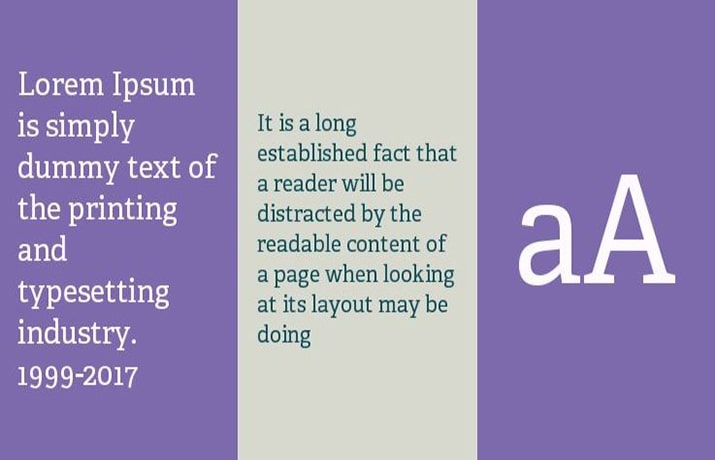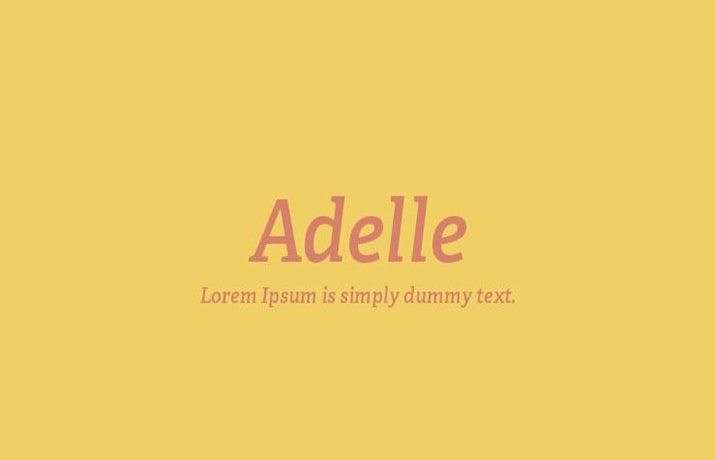
Adelle Font is a versatile slab serif typeface that comes with clean letters. Use it for any kind of project, both print or digital.
It was first created by José Scaglione and Veronika Burian. TypeTogether Foundry is a classic font designing company that has reserved all rights since 2009.
It is truly a modern slab serif as all the letters are designed with modern requirements. They can adjust to small text and large text as well.
And, it maintains the correct balance of shapes, and strokes. All these letters are made in thin and bold style with thick strokes. So it is really viable for professional tasks.
This unique font with its eye-catching appearance makes it a fast fit for every designing idea ever. For example, it can be used for business cards, title designing, logo making, wedding and birthday cards, headlines, and titles as well as printing in textile industries.
This font family comes in seven styles thin, light, regular, semibold, bold, extra bold, and heavy. All styles in the font family have a classic look with clean, solid, and easy-to-read textures.